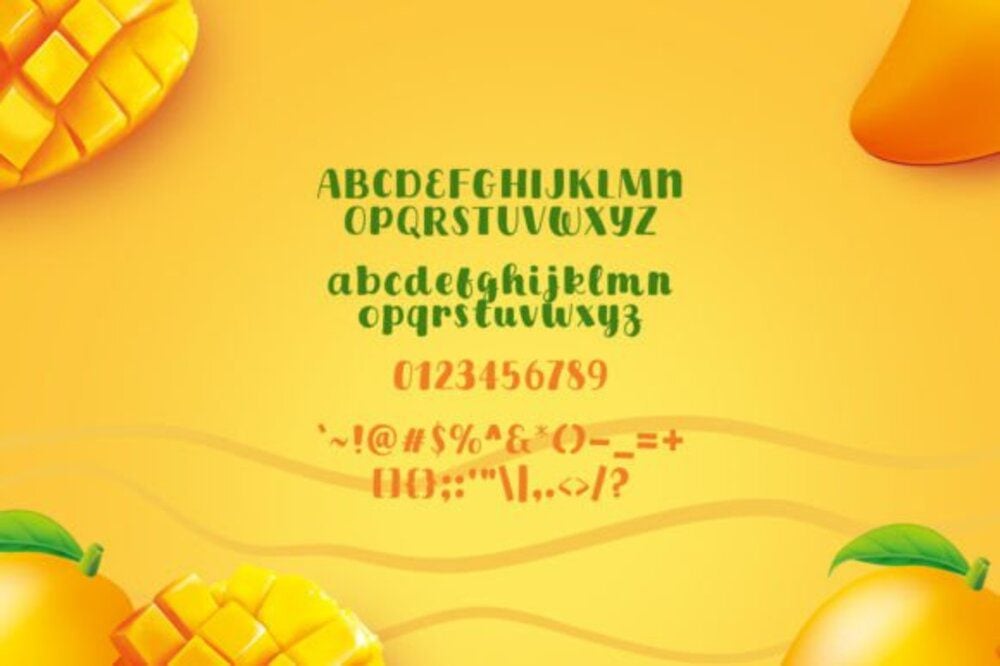
Sunday Mango Font
Sunday Mango Font is a breezy, modern typeface that radiates warmth and creativity. With its casual strokes and organic charm, it’s perfect for projects seeking a relaxed, artistic vibe. Ideal for invitations, social media posts, or branding, this font captures the essence of a laid-back Sunday. Its playful yet elegant design adds a touch of freshness and joy to any creation.